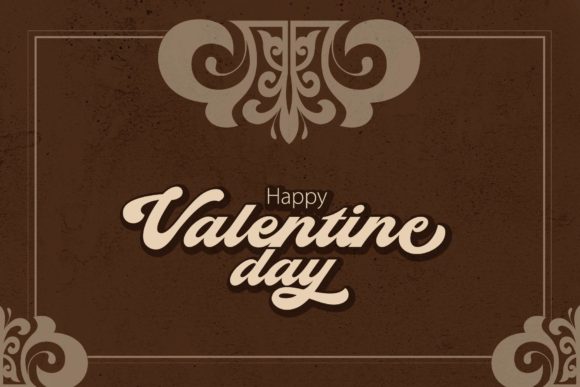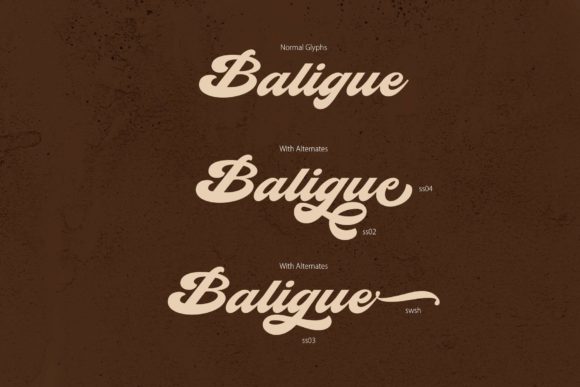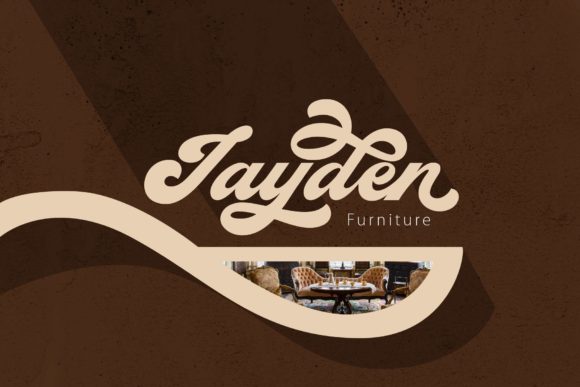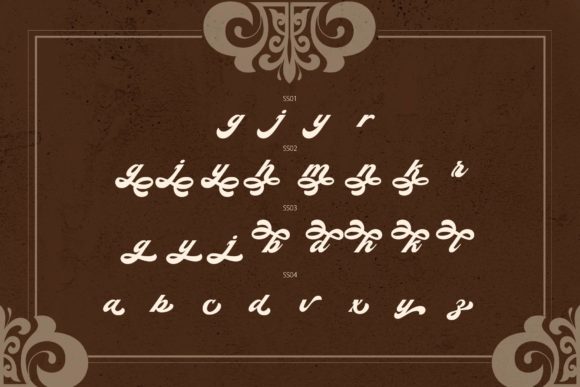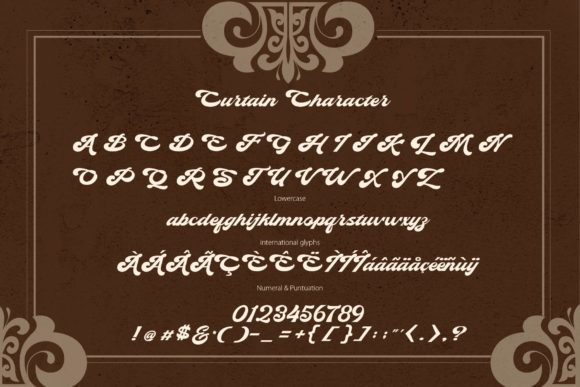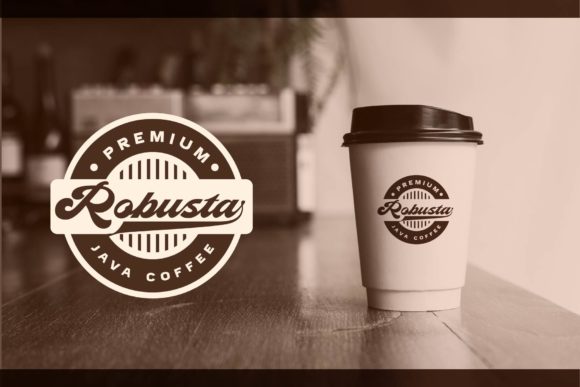
Introducing Glotera Font: The Ultimate Retro and Bold Handwritten Font for Designers
Are you a designer or crafter looking for a font that can add a touch of nostalgia and style to your headlines and logotype projects? Look no further than Glotera Font! This retro and bold handwritten font is crafted to give your designs a strong, confident, and dynamic look that’s sure to turn heads.
What Makes Glotera Font So Special?
Glotera Font is a unique and stylish font that’s perfect for designers who want to add a touch of nostalgia to their work. With its bold and confident look, this font is ideal for headlines, logotypes, and any other design project that requires a strong and dynamic font. Whether you’re working on a branding project, a poster, or a website, Glotera Font is sure to make your designs stand out.
Key Features of Glotera Font
So, what makes Glotera Font so special? Here are just a few of its key features:
- Retro and Bold Design: Glotera Font has a unique retro look that’s perfect for designers who want to add a touch of nostalgia to their work.
- Handwritten Style: This font has a handwritten style that’s perfect for adding a personal touch to your designs.
- PUA Encoded: Glotera Font is PUA encoded, which means you can access all of the glyphs and swashes with ease.
- Strong and Confident Look: This font has a strong and confident look that’s perfect for headlines and logotypes.
- Nostalgic Character: Glotera Font has a nostalgic character that’s perfect for designers who want to add a touch of vintage style to their work.
How to Use Glotera Font in Your Designs
Using Glotera Font in your designs is easy! Here are a few tips to get you started:
- Headlines and Logotypes: Use Glotera Font for headlines and logotypes to add a touch of style and sophistication to your designs.
- Branding Projects: Use this font for branding projects, such as business cards, brochures, and posters, to create a strong and memorable brand identity.
- Web Design: Use Glotera Font for web design projects, such as website headers and titles, to add a touch of personality and style to your website.
Why Designers and Crafters Love Glotera Font
Designers and crafters love Glotera Font for many reasons. Here are just a few:
- Unique and Stylish Design: Glotera Font has a unique and stylish design that’s perfect for designers who want to add a touch of personality to their work.
- Easy to Use: This font is easy to use and can be accessed with ease, thanks to its PUA encoding.
- Versatile: Glotera Font is versatile and can be used for a wide range of design projects, from headlines and logotypes to branding and web design.
In conclusion, Glotera Font is a retro and bold handwritten font that’s perfect for designers and crafters who want to add a touch of style and nostalgia to their work. With its strong and confident look, this font is ideal for headlines, logotypes, and any other design project that requires a dynamic font. Whether you’re working on a branding project, a poster, or a website, Glotera Font is sure to make your designs stand out.